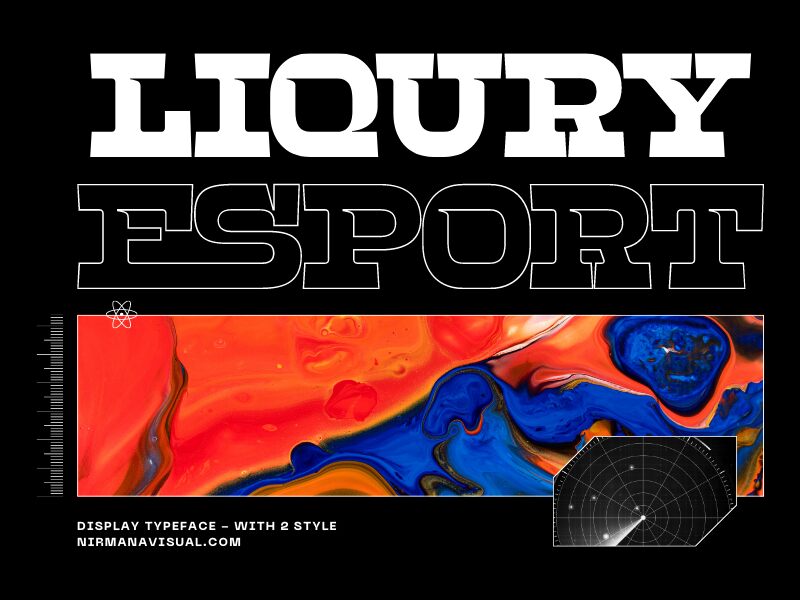
Liqury Esport - Demo Version Regular
Liqury Esport font by Nirmana Visual is a free retro display font. Built for adrenaline, it hits hard with chunky slabs, squared curves, and tight spacing that snaps into a clean, banner-like rhythm. The strokes feel sturdy and slightly mechanical, echoing arcade marquees and varsity lettering while keeping edges crisp and readable at a glance.
Using Liqury Esport, your titles punch through on esports logos, streaming overlays, tournament posters, team jerseys, badges, and YouTube thumbnails. This free font shines on short, high-impact words; scale it up and let the heavy slabs do the shouting. Pair with a simple geometric sans for body copy to keep the focus where it belongs.